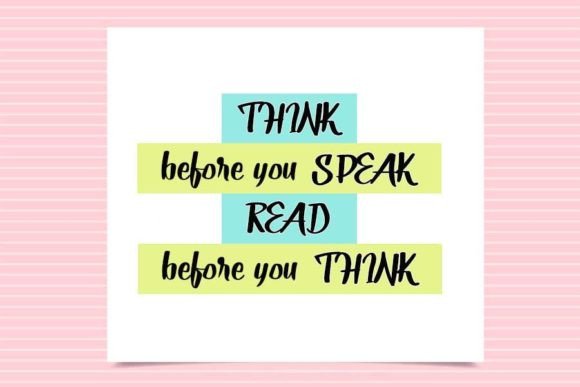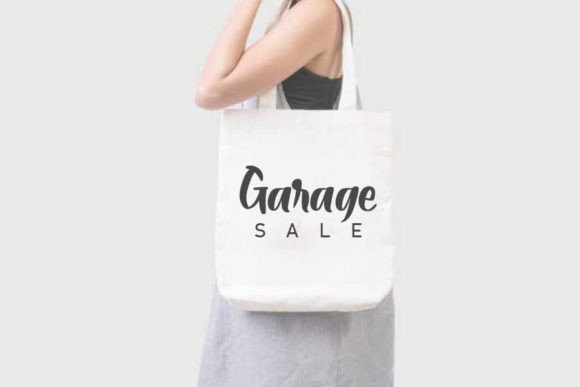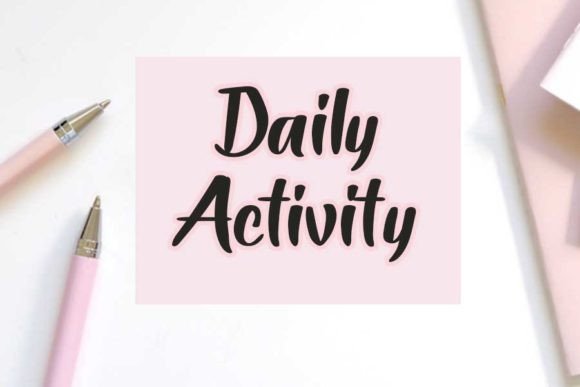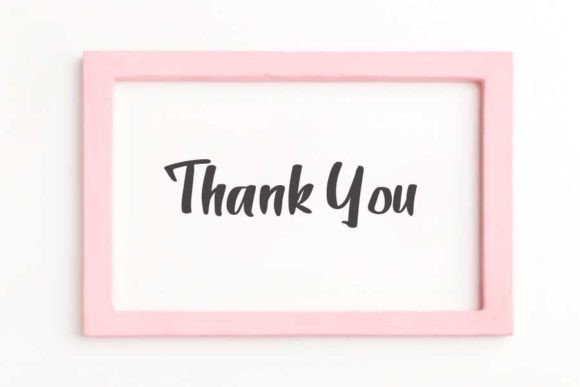
Creative Font
About Creative Font
Introducing Creative, a font that exudes incredible elegance and flowing beauty. This font is crafted to perfection, making it a stunning choice for a variety of design applications, including wedding invitations, thank you cards, quotes, greeting cards, logos, business cards, and any project that benefits from a handwritten touch. With its varying baseline and smooth lines, Creative brings a sense of sophistication and artistry to every design.
The beauty of Creative lies in its elegant and flowing script, which adds a touch of grace to your projects. The varying baseline and smooth lines contribute to a visual aesthetic that is both captivating and refined.
For wedding invitations, Creative becomes a timeless choice that complements the romantic atmosphere of the occasion. Its handwritten touch adds a personal and elegant feel, setting the tone for a memorable event.
Thank you cards and greeting cards adorned with Creative carry a sense of sincerity and style. The font’s flowing script enhances the heartfelt messages, creating designs that are both visually appealing and emotionally resonant.
Quotes take on a new level of sophistication when presented in Creative. The font’s elegance elevates the impact of the words, creating visually stunning and inspirational designs.
In logos and business cards, Creative becomes a distinctive and memorable choice. Its handwritten touch adds a human element to your brand, making it more relatable and engaging to your audience.
The varying baseline and smooth lines of Creative make it suitable for a wide range of design contexts. Whether you’re working on digital designs or physical prints, this font is designed to bring an extra layer of artistry to your projects.
In conclusion, Creative is more than just a font; it’s a design element that enhances the elegance and sophistication of your projects. Choose Creative when you need a handwritten touch that exudes beauty and flows with grace, creating stunning designs that leave a lasting impression.